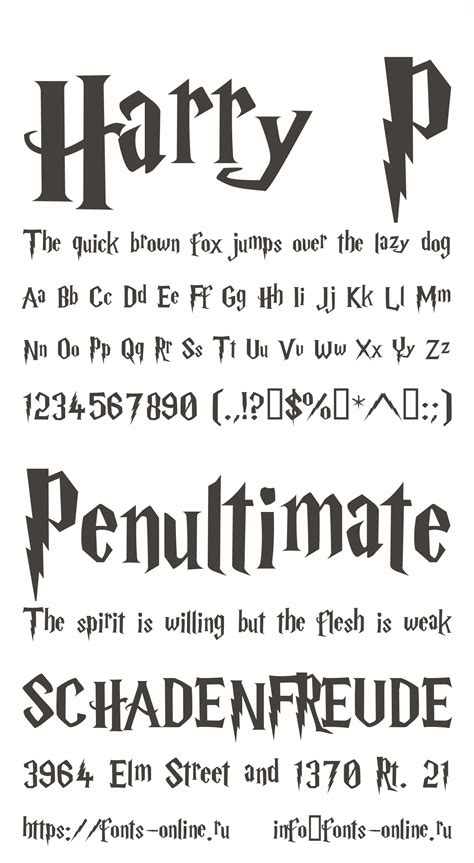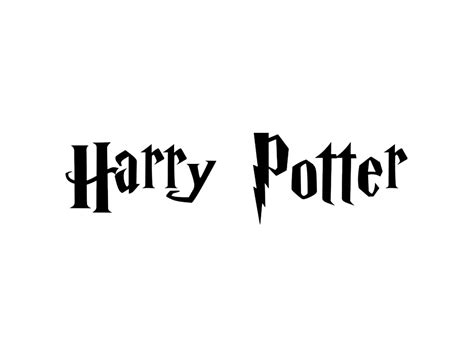
Typography plays a crucial role in design, setting the tone and enhancing the readability of any written content. Among the myriad of fonts available, the Harry P Font stands out for its unique characteristics and versatility. This font, with its distinctive style, has garnered attention from designers and typography enthusiasts alike. Let's delve into the world of Harry P Font, exploring its features, applications, and why it has become a favorite among professionals.
Understanding Harry P Font
The Harry P Font is a typeface that combines elegance with a modern twist. Its design is inspired by classic typography but with a contemporary edge, making it suitable for a wide range of applications. Whether you're designing a logo, creating a brochure, or crafting a website, Harry P Font offers a versatile solution that can elevate your design projects.
Key Features of Harry P Font
The Harry P Font boasts several key features that make it a standout choice for designers:
- Elegant Design: The font's elegant curves and clean lines give it a sophisticated look that can enhance any design project.
- Versatility: Harry P Font is highly versatile and can be used in various contexts, from formal documents to casual designs.
- Readability: Despite its stylish appearance, the font maintains excellent readability, ensuring that your content is easily understood by the audience.
- Modern Aesthetic: The font's modern design elements make it a great choice for contemporary projects, adding a fresh and innovative touch.
Applications of Harry P Font
The versatility of Harry P Font makes it suitable for a wide range of applications. Here are some of the most common uses:
- Logo Design: The elegant and modern design of Harry P Font makes it an excellent choice for creating logos that stand out.
- Print Media: Whether it's brochures, flyers, or business cards, Harry P Font can add a touch of sophistication to your print materials.
- Web Design: The font's readability and modern aesthetic make it a great choice for website headers, body text, and other web elements.
- Branding: For companies looking to establish a strong brand identity, Harry P Font can be a valuable asset, conveying elegance and professionalism.
Designing with Harry P Font
When designing with Harry P Font, there are several best practices to keep in mind to ensure your projects look polished and professional:
- Pairing with Other Fonts: Harry P Font pairs well with a variety of other fonts. For a balanced look, consider pairing it with a sans-serif font for body text.
- Color Schemes: The font's elegant design works well with a range of color schemes. Experiment with different colors to find the perfect match for your project.
- Size and Spacing: Pay attention to the size and spacing of the text to ensure readability. Harry P Font looks best when used at a moderate size with appropriate line spacing.
Here is a table to help you understand the different weights and styles available in Harry P Font:
| Weight | Style | Usage |
| Light | Thin, delicate lines | Ideal for headings and subheadings |
| Regular | Standard weight | Versatile for body text and headings |
| Bold | Thicker, more pronounced lines | Great for emphasis and highlights |
| Italic | Slanted version of the regular weight | Useful for quotes and emphasis |
Harry P Font in Branding
Branding is a critical aspect of any business, and the choice of font can significantly impact how a brand is perceived. Harry P Font is an excellent choice for branding due to its elegant and modern design. Here are some ways to incorporate Harry P Font into your branding strategy:
- Logo Design: Use Harry P Font to create a logo that reflects your brand's values and personality. The font's elegant design can convey sophistication and professionalism.
- Brand Guidelines: Include Harry P Font in your brand guidelines to ensure consistency across all marketing materials. This will help maintain a cohesive brand identity.
- Marketing Collateral: Use Harry P Font in brochures, flyers, and other marketing materials to create a polished and professional look.
When using Harry P Font for branding, it's essential to consider the overall aesthetic of your brand. The font should complement your brand's color scheme, logo, and other design elements. Consistency is key in branding, so ensure that Harry P Font is used consistently across all touchpoints.
Harry P Font in Web Design
Web design is another area where Harry P Font shines. Its modern aesthetic and excellent readability make it a great choice for websites. Here are some tips for using Harry P Font in web design: